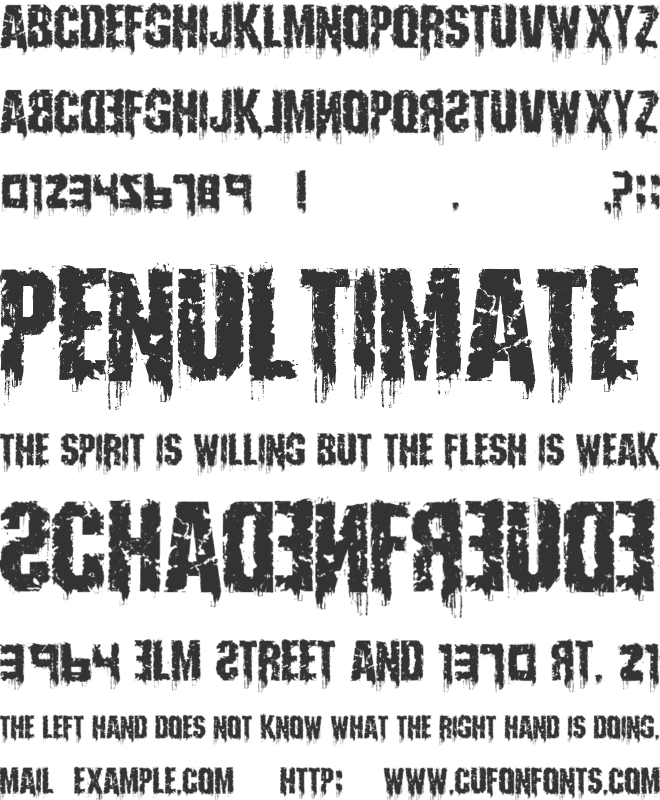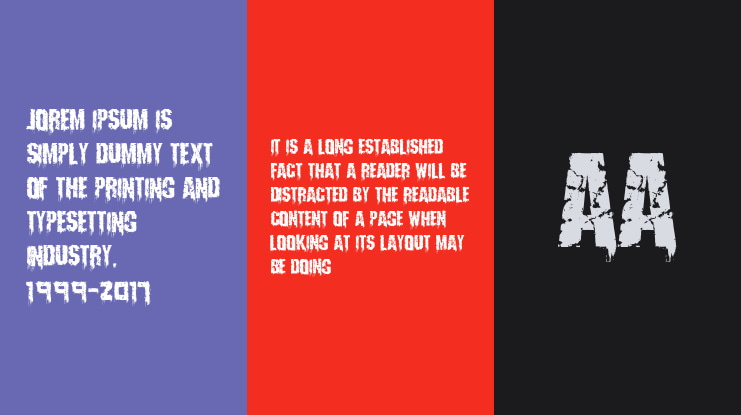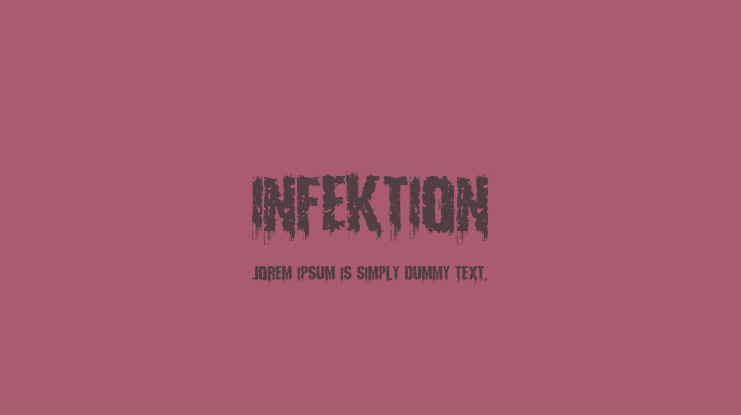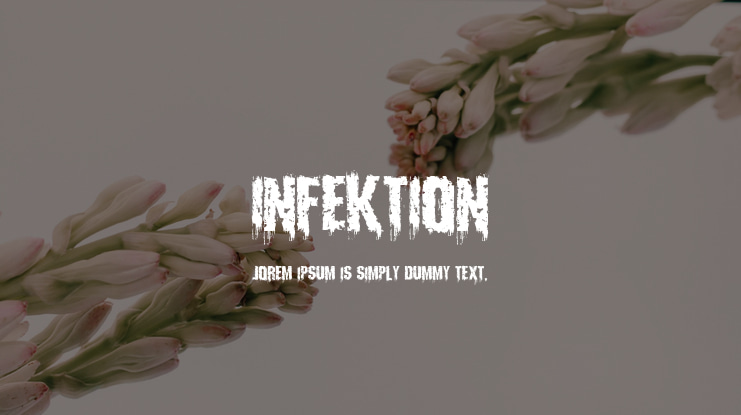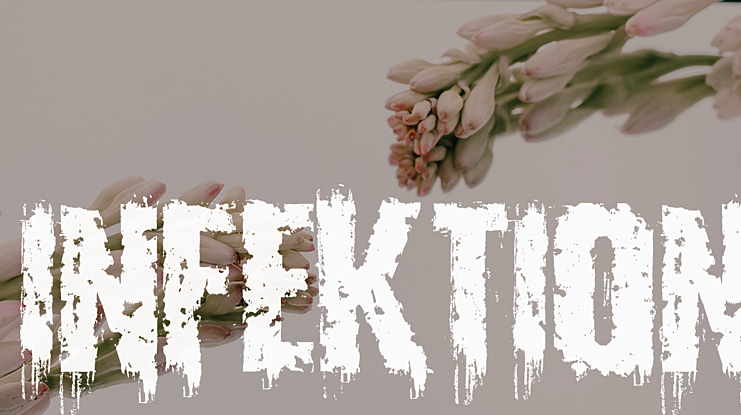
Infektion Font Family
INFEKTION is inspired by post-apocalyptic, distressed/worn out designs like you would normally see in shows like "The Walking Dead". INFEKTION is suited to any post-apocalyptic work as well as giving a grungy, dirty look to posters, logos & more!